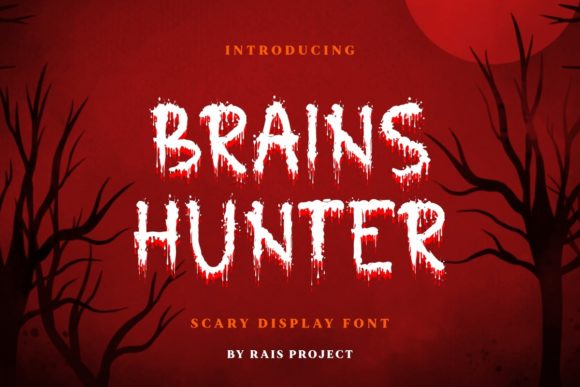
Brains Hunter Font was meticulously designed to capture the very essence of fear and horror. Each letterform is a masterpiece of macabre elegance, etched with the precision of a surgeon's scalpel. The result is a font that will send shivers down your spine and leave an unforgettable mark on your designs.
Picture this: the spine-chilling cover of a horror novel, emblazoned with the chilling letters of Brains Hunter Font. The jagged edges of each character seem to reach out from the page, beckoning you into a world of shadows and terror. Or imagine the eerie glow of a pumpkin lantern, its wicked grin illuminated by the flickering light of Brains Hunter Font. The font's twisted curves and menacing angles perfectly convey the unsettling atmosphere of Halloween.
But Brains Hunter Font is not confined to the realm of horror. Its versatility extends to a wide range of creative projects, from album covers to movie posters to t-shirt designs. Wherever you seek to evoke a sense of unease or suspense, Brains Hunter Font will be your faithful companion.
So why settle for ordinary fonts when you can unleash the power of Brains Hunter Font? Let your imagination run wild and create designs that will haunt your audience long after they've turned the page.